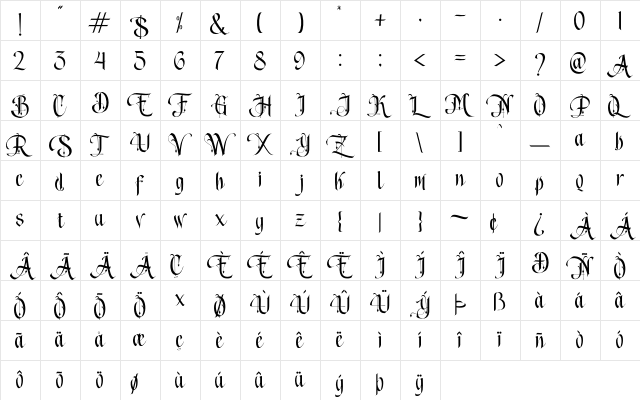
Complete Song of coronos Regular glyph index. Displaying only characters natively supported by Song of coronos Regular font.
Song of coronos is a composed and adaptable typeface that performs quietly and consistently across a wide range of design contexts.